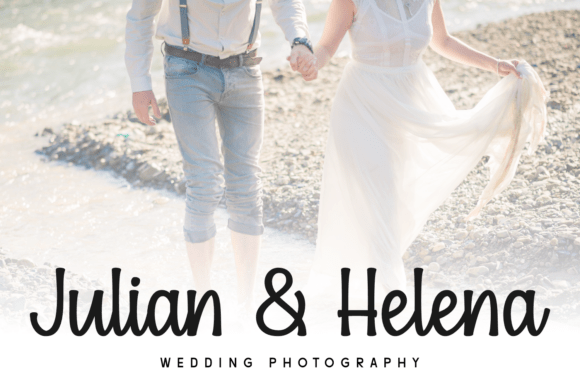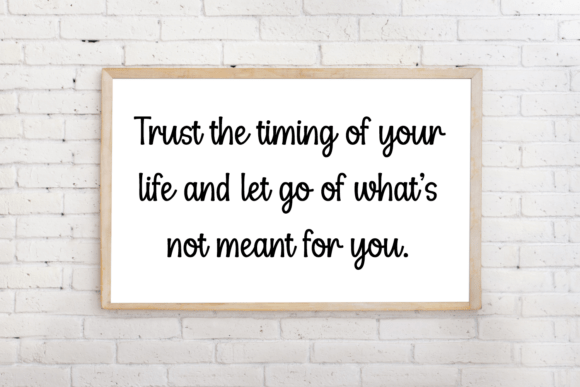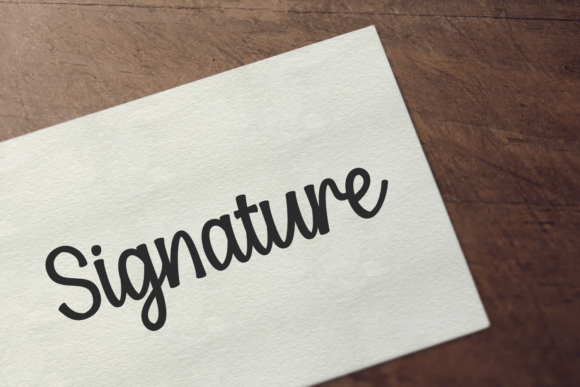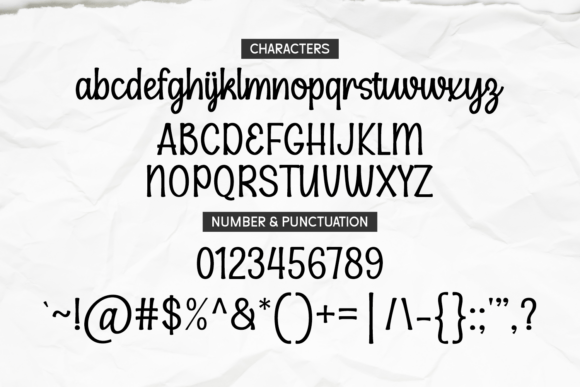
Introducing Heartscript Font: The Epitome of Modern Romantic Elegance
Are you on the hunt for a font that exudes modern romantic elegance? Look no further than Heartscript, a beautiful and charming typeface that embodies the perfect blend of casual playfulness and feminine softness. This stunning font is designed to capture the essence of contemporary romance, making it an ideal choice for designers and crafters seeking to add a touch of whimsy and sophistication to their projects.
The Characteristics of Heartscript Font
Heartscript font is characteristically casual and playful, with a stylish sweetness that is sure to captivate your audience. Its charming appeal is perfect for a wide range of applications, from personal notes and wedding invitations to branding and marketing materials. The font’s feminine softness is balanced by a dash of whimsy, creating a unique and eye-catching aesthetic that is both modern and timeless.
Perfect for Romantic and Whimsical Projects
Heartscript font is perfect for anyone looking to add a touch of romance and whimsy to their projects. The font features love-themed decorative elements, making it an ideal choice for wedding invitations, Valentine’s Day cards, and other romantic-themed projects. Its adorable and friendly design also makes it perfect for use in children’s books, party invitations, and other fun and playful applications.
Key Features of Heartscript Font
- Modern romantic elegance: Heartscript font embodies the perfect blend of modern sophistication and romantic charm.
- Playful and casual: The font’s playful and casual design makes it perfect for a wide range of applications, from personal notes to branding and marketing materials.
- Feminine softness: Heartscript font features a feminine softness that is balanced by a dash of whimsy, creating a unique and eye-catching aesthetic.
- Love-themed decorative elements: The font features love-themed decorative elements, making it perfect for romantic-themed projects.
- Adorable and friendly design: Heartscript font has an adorable and friendly design that is sure to captivate your audience.
Why Choose Heartscript Font?
There are many reasons why designers and crafters should choose Heartscript font for their projects. Here are just a few:
- Unique and eye-catching aesthetic: Heartscript font has a unique and eye-catching aesthetic that is sure to set your projects apart from the crowd.
- Versatile: The font is versatile and can be used in a wide range of applications, from personal notes to branding and marketing materials.
- Easy to read: Heartscript font is easy to read, making it perfect for use in body text and other applications where readability is important.
- High-quality design: The font features a high-quality design that is sure to impress your audience.
How to Use Heartscript Font
Heartscript font is easy to use and can be incorporated into a wide range of projects. Here are a few ideas to get you started:
- Wedding invitations: Use Heartscript font to create beautiful and romantic wedding invitations that will set the tone for your special day.
- Personal notes: Add a touch of whimsy and romance to your personal notes with Heartscript font.
- Branding and marketing materials: Use Heartscript font to add a touch of elegance and sophistication to your branding and marketing materials.
- Children’s books: Heartscript font is perfect for use in children’s books, adding a touch of whimsy and fun to your story.
| Author | Damai (7NTypes) |
In conclusion, Heartscript font is a beautiful and charming typeface that embodies the perfect blend of modern romantic elegance and playful whimsy. Its feminine softness, love-themed decorative elements, and adorable design make it perfect for a wide range of applications, from wedding invitations to branding and marketing materials. Whether you’re a designer or crafter, Heartscript font is sure to captivate your audience and add a touch of sophistication and elegance to your projects.